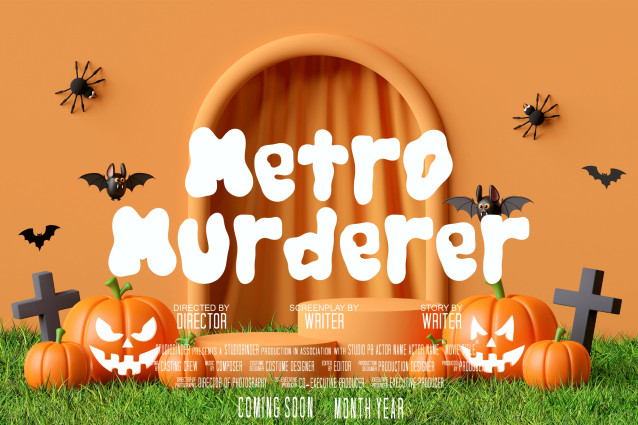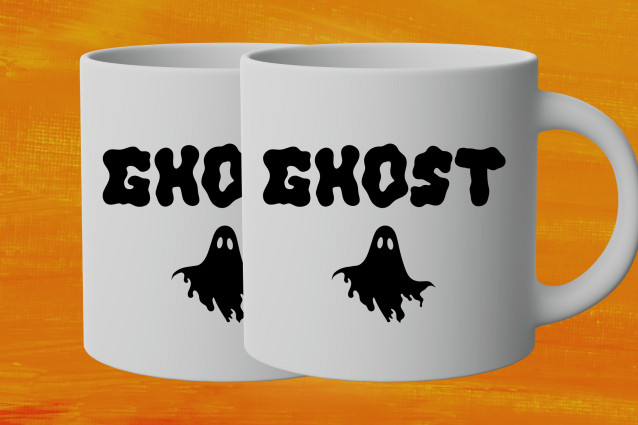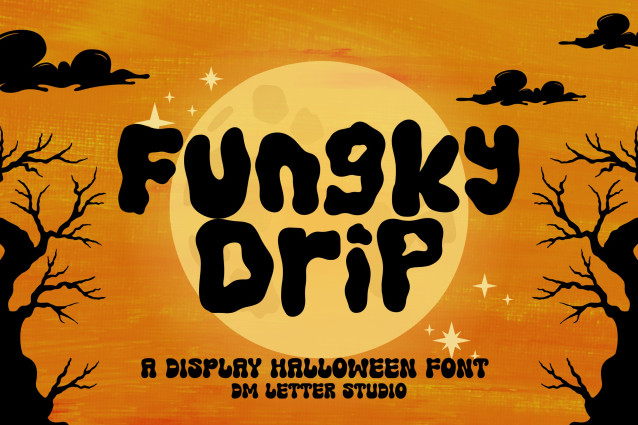
Funky Drip Font
Funky Drip Font is a bold and playful display font with a spooky twist, perfect for Halloween designs and seasonal projects. Its dripping letterforms give your text a creepy yet fun vibe, making it great for posters, invitations, party decor, and themed merchandise.